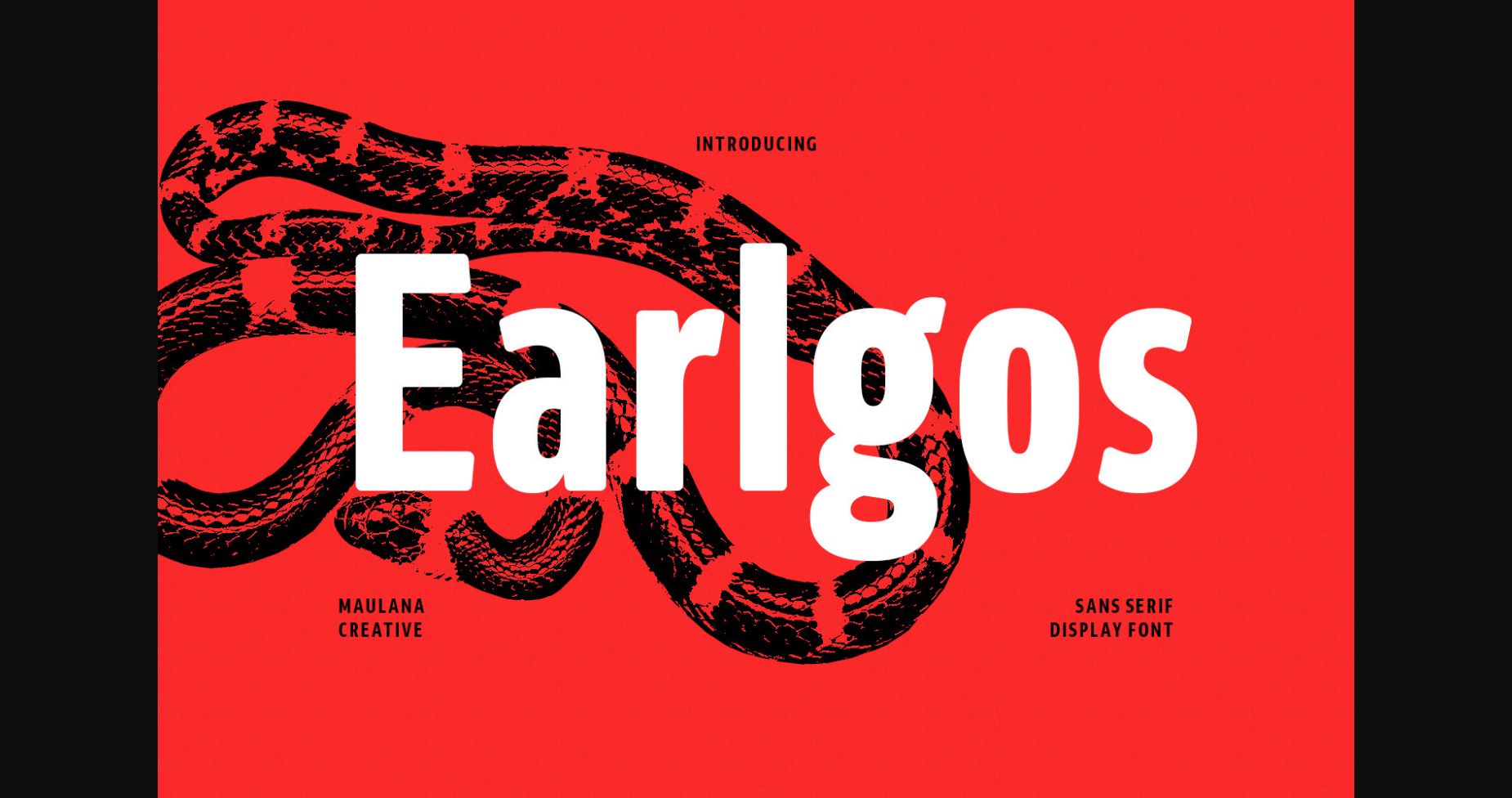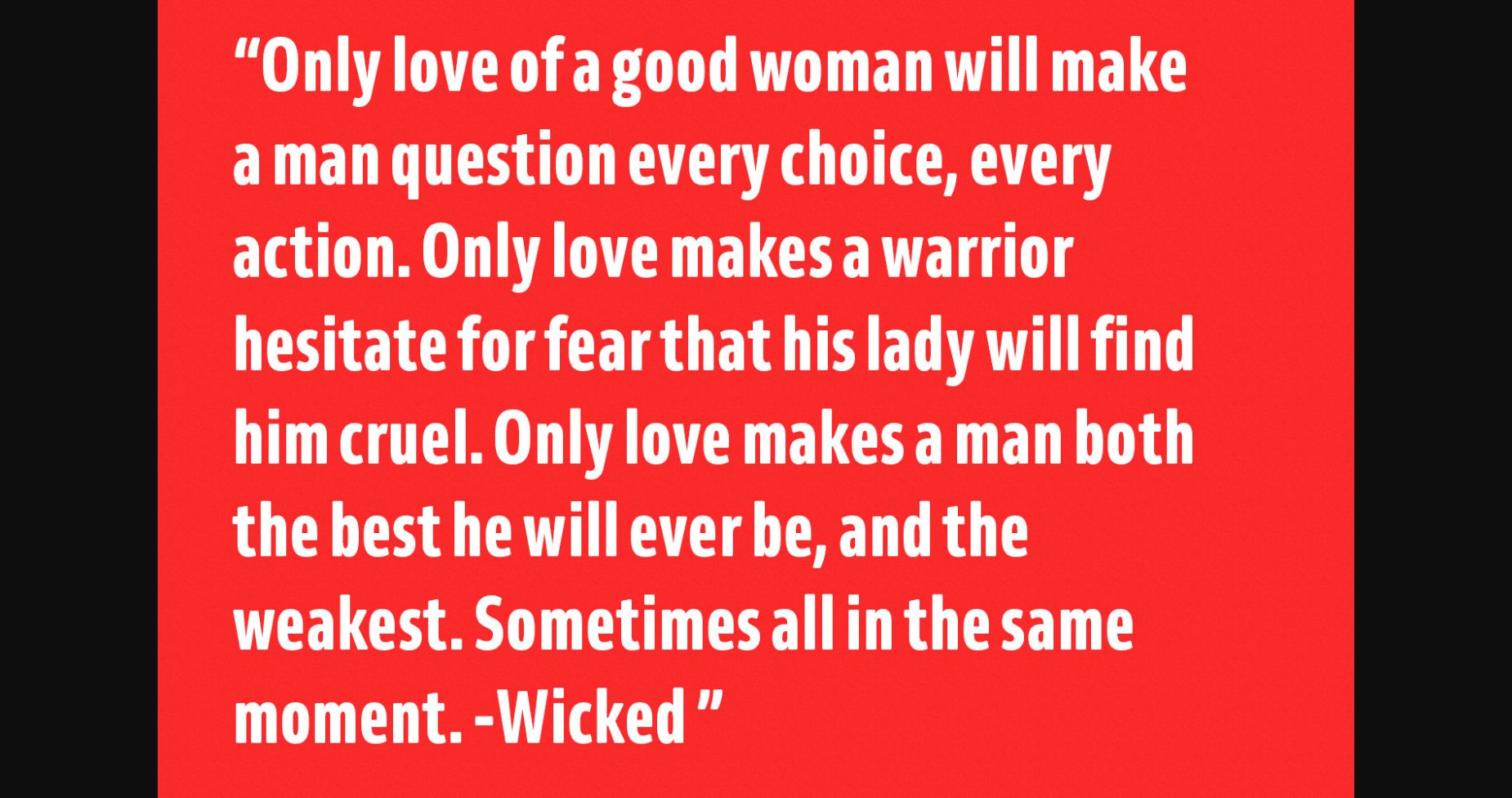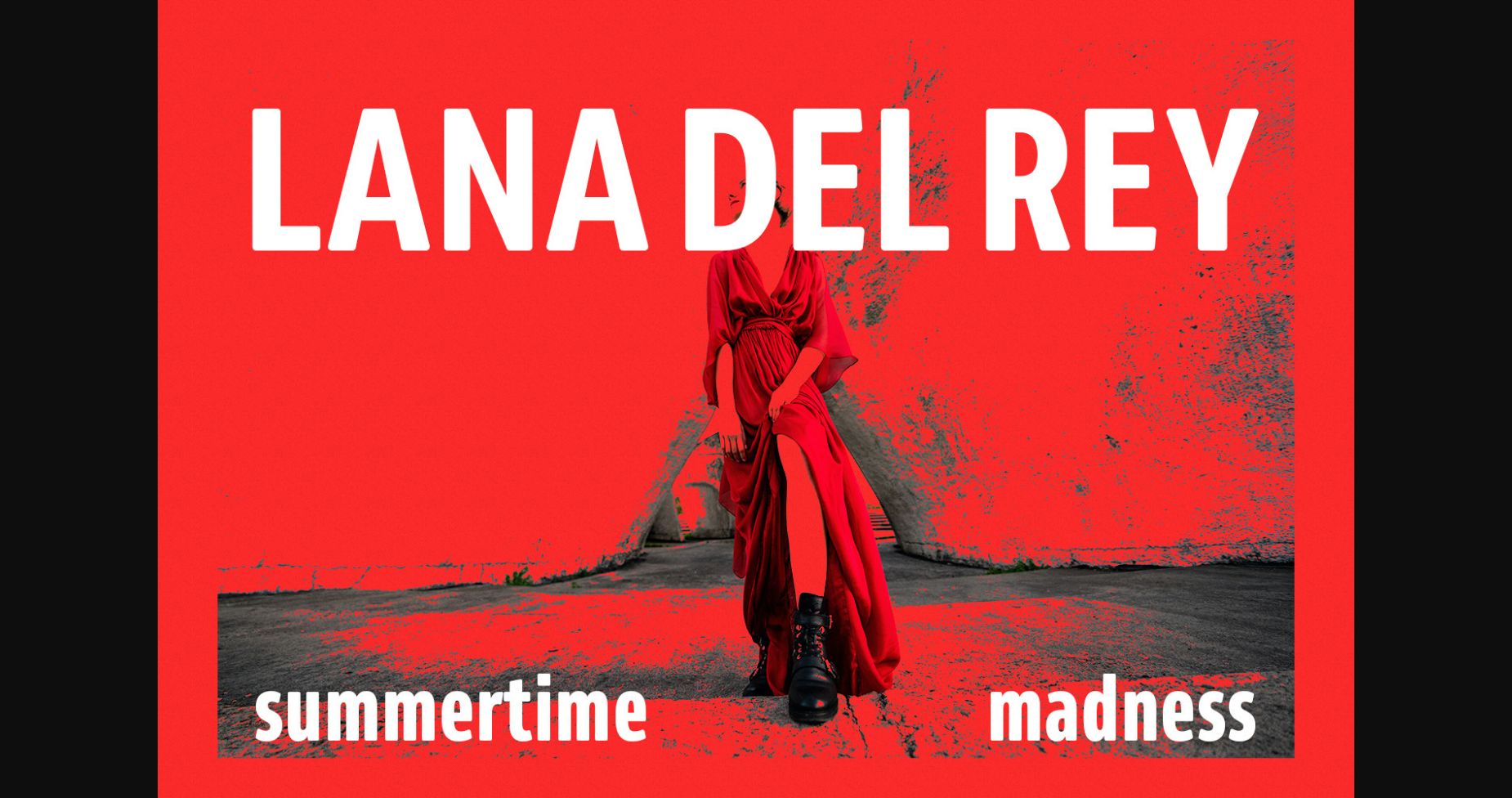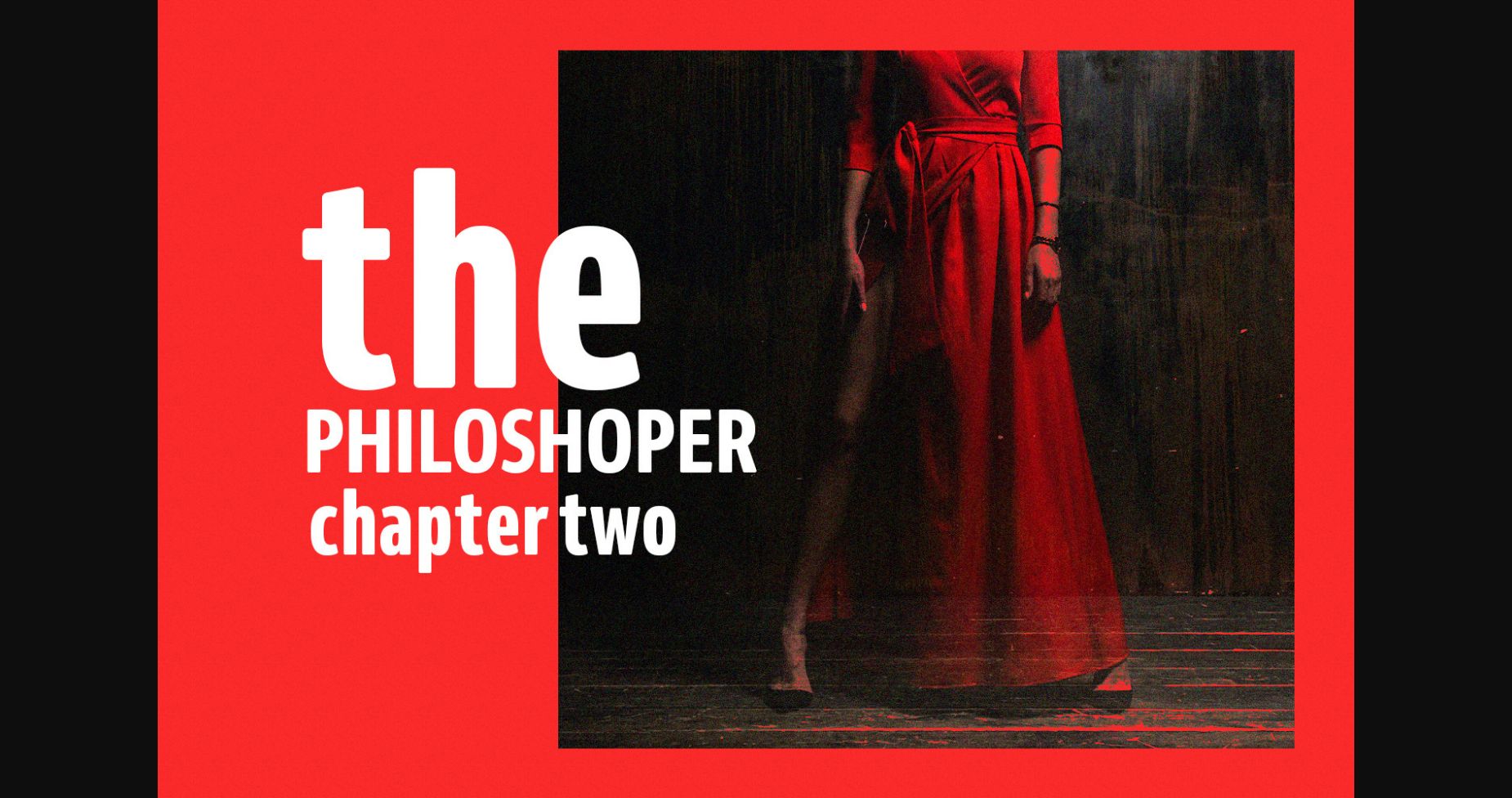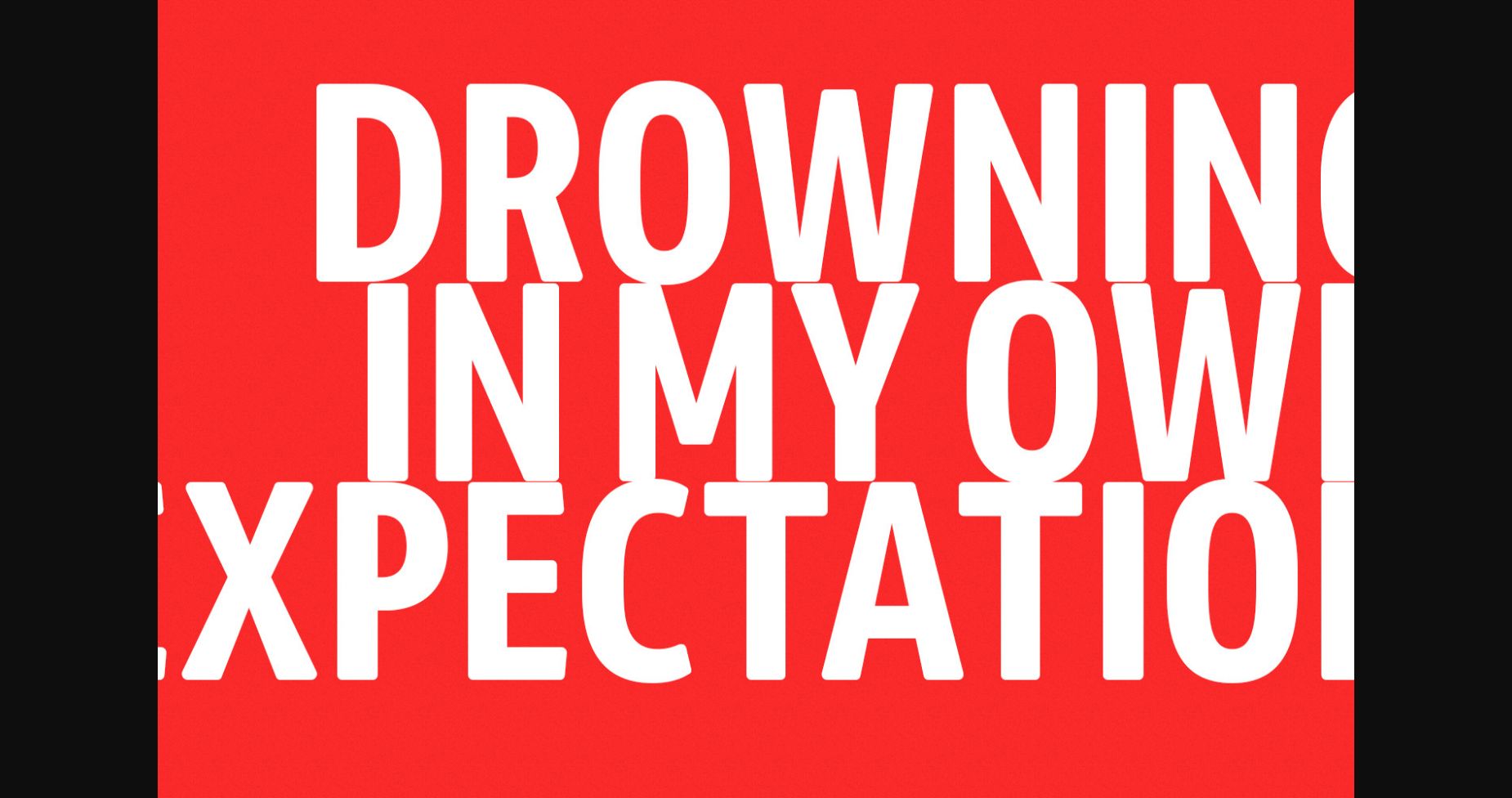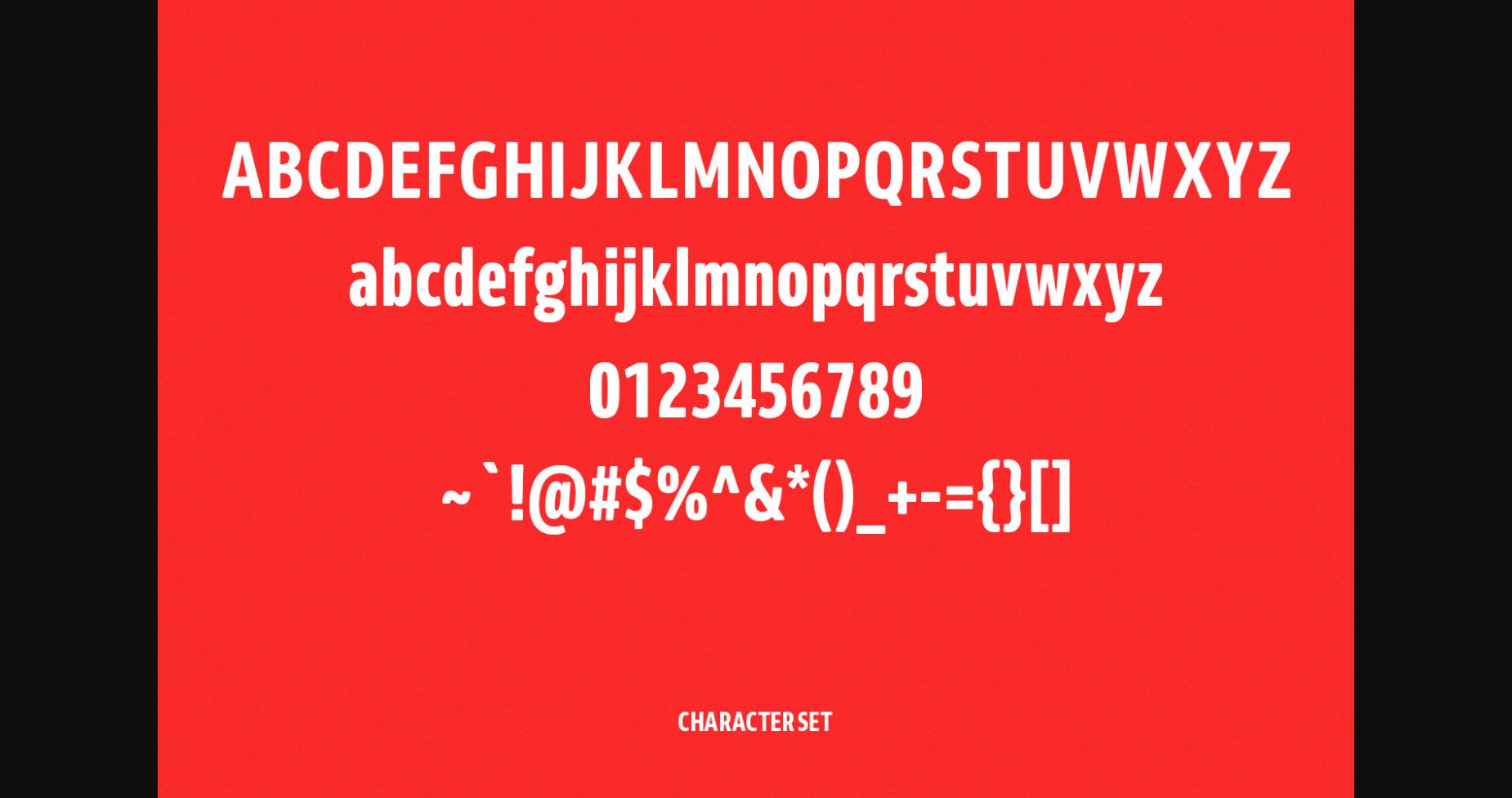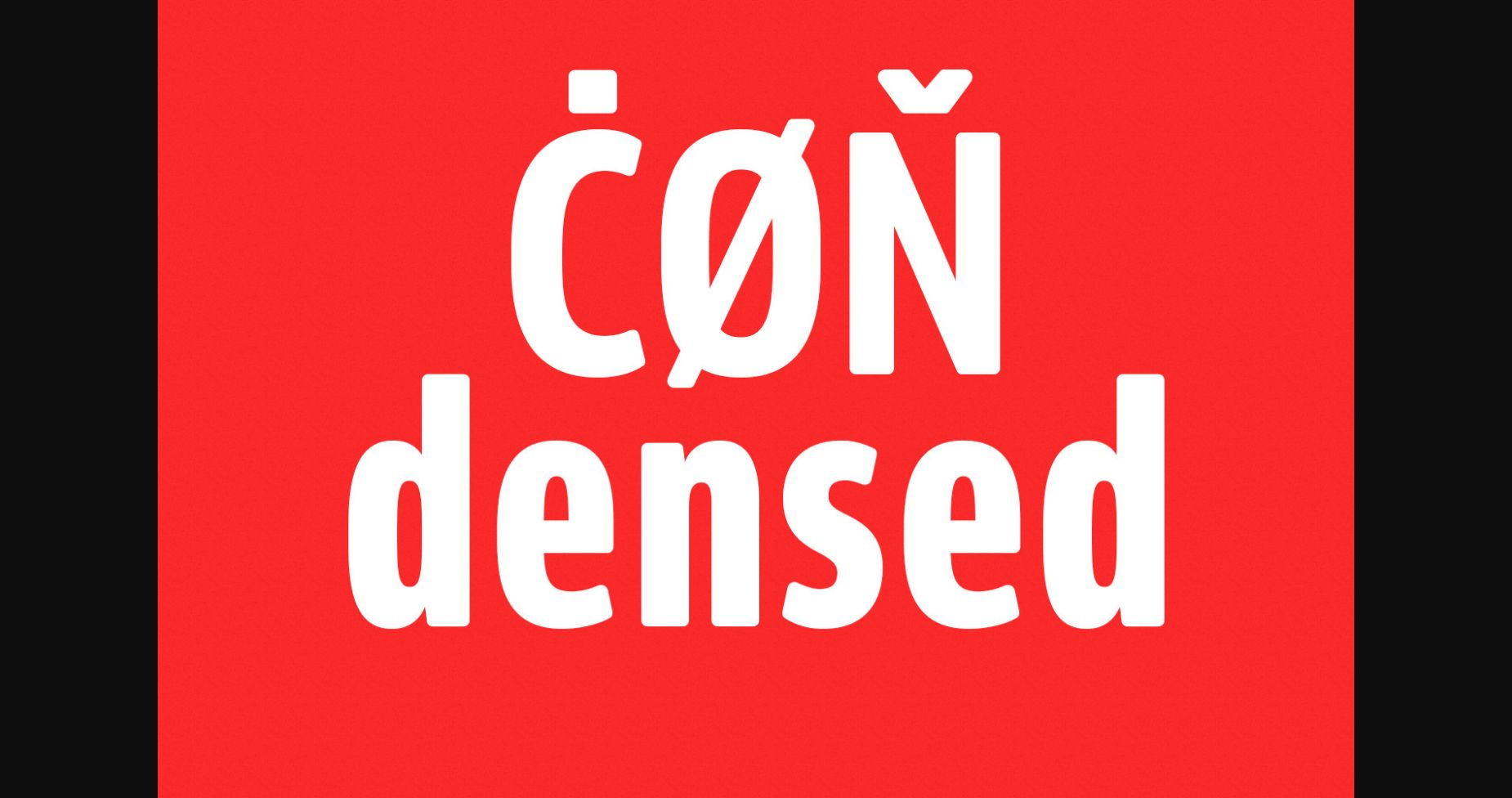
Earlgos Font
About Earlgos Font
Earlgos is a condensed sans-serif font that features a sleek, modern design. Its tall and narrow letterforms are perfect for creating a bold and impactful look in headings and titles. The sharp edges and minimalist details give it a sense of precision and efficiency, making it ideal for branding, advertising, and editorial projects that require a contemporary feel. The compact spacing and strong vertical emphasis make it an excellent choice for designs with limited space.